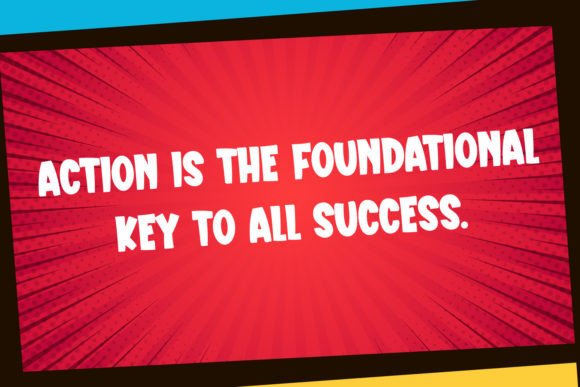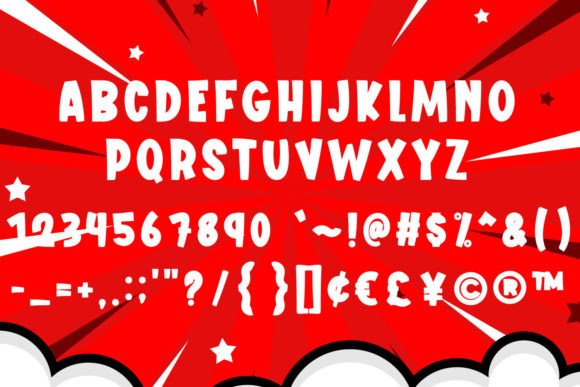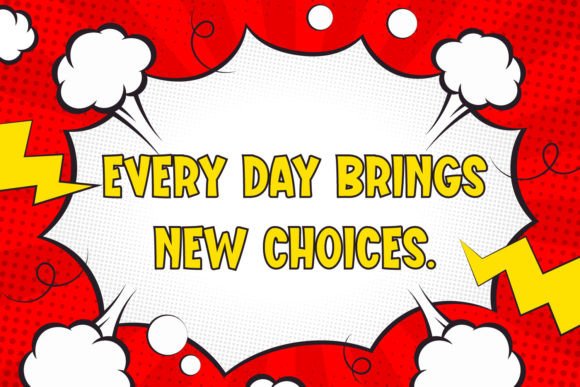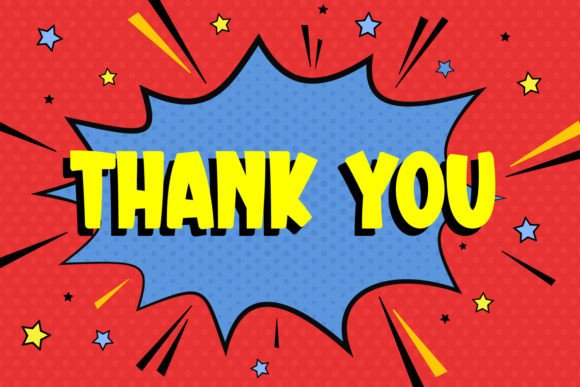
Introducing Comic Story Font: The Perfect Choice for Playful Designs
Are you a designer or crafter looking for a font that embodies playfulness and authenticity? Look no further than Comic Story Font! This friendly display font is perfect for any children’s activity or elementary school design, bringing a sense of fun and approachability to your projects.
What is Comic Story Font?
Comic Story Font is a carefully crafted display font designed to capture the essence of childhood imagination and creativity. Its playful and authentic feel makes it an ideal choice for a wide range of design projects, from children’s books and educational materials to posters, flyers, and more.
Key Features of Comic Story Font
- Playful and Authentic: Comic Story Font is designed to evoke a sense of playfulness and authenticity, making it perfect for designs that require a friendly and approachable tone.
- Display Font: This font is specifically designed as a display font, making it perfect for headlines, titles, and other prominent text elements.
- Children’s Friendly: Comic Story Font is a great choice for any design project aimed at children, including children’s books, activity sheets, and educational materials.
- Elementary School Approved: This font is also suitable for elementary school designs, including posters, flyers, and other materials used in educational settings.
Why Choose Comic Story Font?
There are many reasons why designers and crafters love Comic Story Font. Here are just a few:
- Unique and Eye-Catching: Comic Story Font is a one-of-a-kind font that is sure to grab attention and make your designs stand out.
- Easy to Read: Despite its playful feel, Comic Story Font is easy to read, making it perfect for designs that require a clear and concise message.
- Versatile: This font can be used in a wide range of design projects, from digital designs to print materials.
- Fun and Engaging: Comic Story Font is designed to bring a sense of fun and engagement to your designs, making it perfect for projects aimed at children and families.
Using Comic Story Font in Your Designs
Comic Story Font is easy to use and can be incorporated into a wide range of design projects. Here are a few ideas to get you started:
- Children’s Books: Use Comic Story Font to create engaging and interactive children’s books that are sure to delight young readers.
- Educational Materials: This font is perfect for educational materials, including worksheets, activity sheets, and other resources used in elementary schools.
- Posters and Flyers: Comic Story Font is a great choice for posters and flyers aimed at children and families, including event promotions, advertisements, and informational materials.
- Digital Designs: This font can also be used in digital designs, including social media graphics, blog posts, and website headers.
Tips for Getting the Most Out of Comic Story Font
Here are a few tips for getting the most out of Comic Story Font:
- Experiment with Colors: Comic Story Font looks great in a wide range of colors, so don’t be afraid to experiment and find the perfect color scheme for your design.
- Use it Sparingly: While Comic Story Font is a fun and playful font, it can be overwhelming if used too much. Use it sparingly to create visual interest and emphasis.
- Pair it with Other Fonts: Comic Story Font pairs well with a wide range of other fonts, so don’t be afraid to experiment and find the perfect font combination for your design.
| Font Name | Comic Story Font |